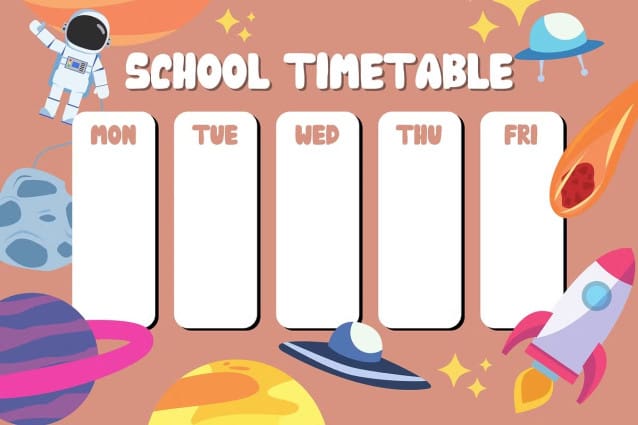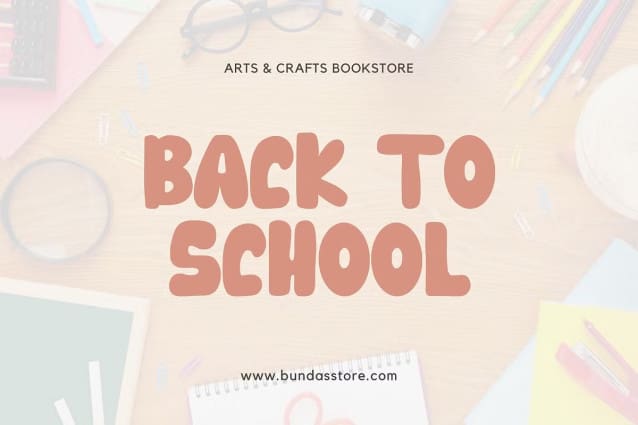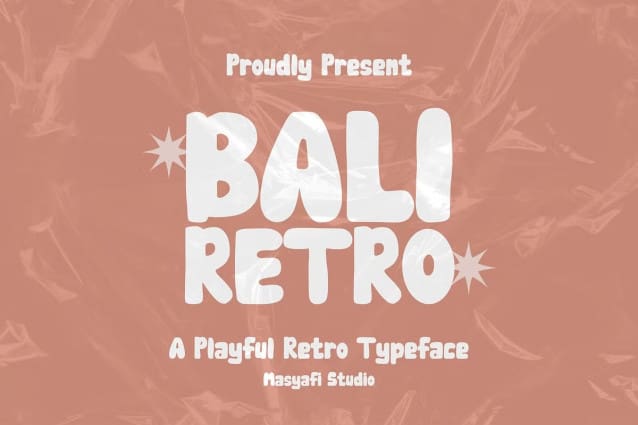
Bali Retro Font
Bali Retro Font is a playful bold retro font with a cool style made by handwriting. This font is perfect for your creative projects, svg files, craft projects, graphic tees, logos, social media, stickers, procreate, and more!